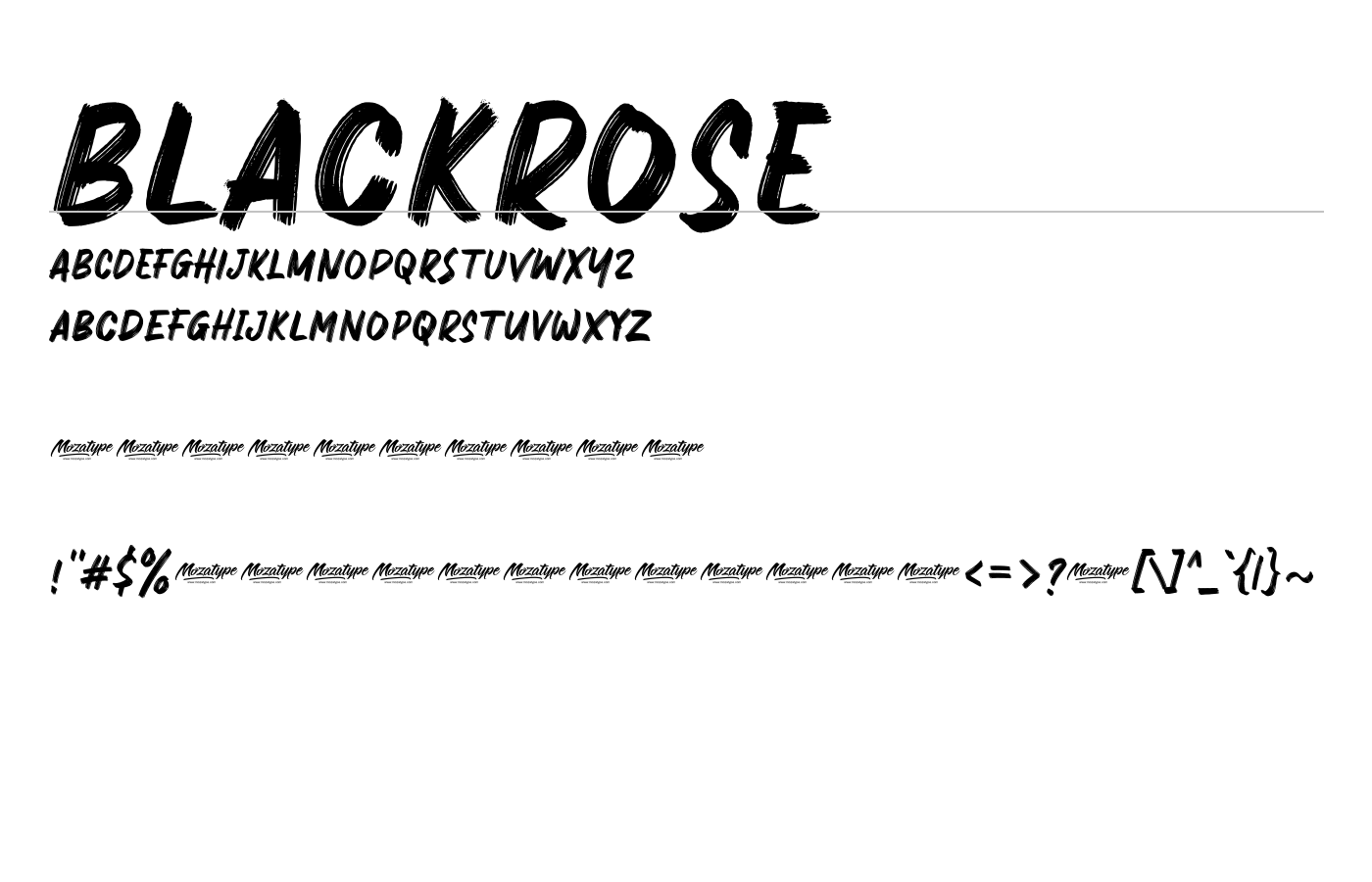
BlackrosE is a bold, handwritten brush font that features dynamic, textured strokes giving it an energetic and authentic feel. Its casual style and organic flow make it perfect for creative branding, posters, and headlines where a spontaneous, artistic vibe is desired. This font excels at adding a lively, personal touch to designs that want to stand out with a bold, informal character.
BlackrosE Font
About BlackrosE Font
| Font family | BlackrosE Font |
| Designer | Mozarella.std |